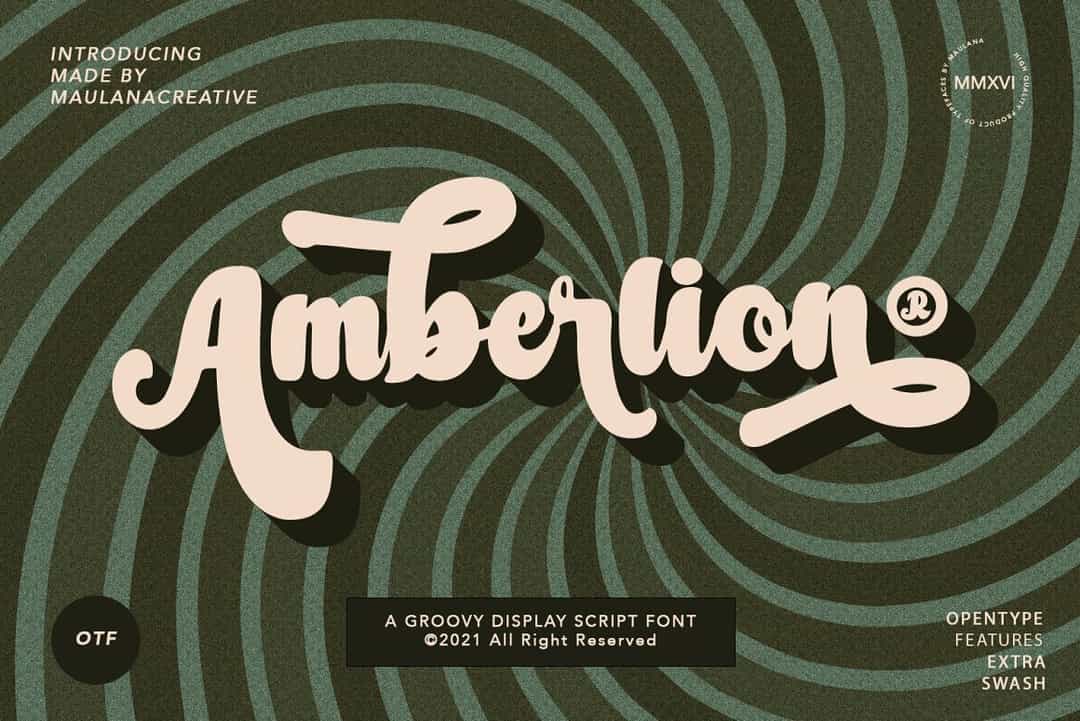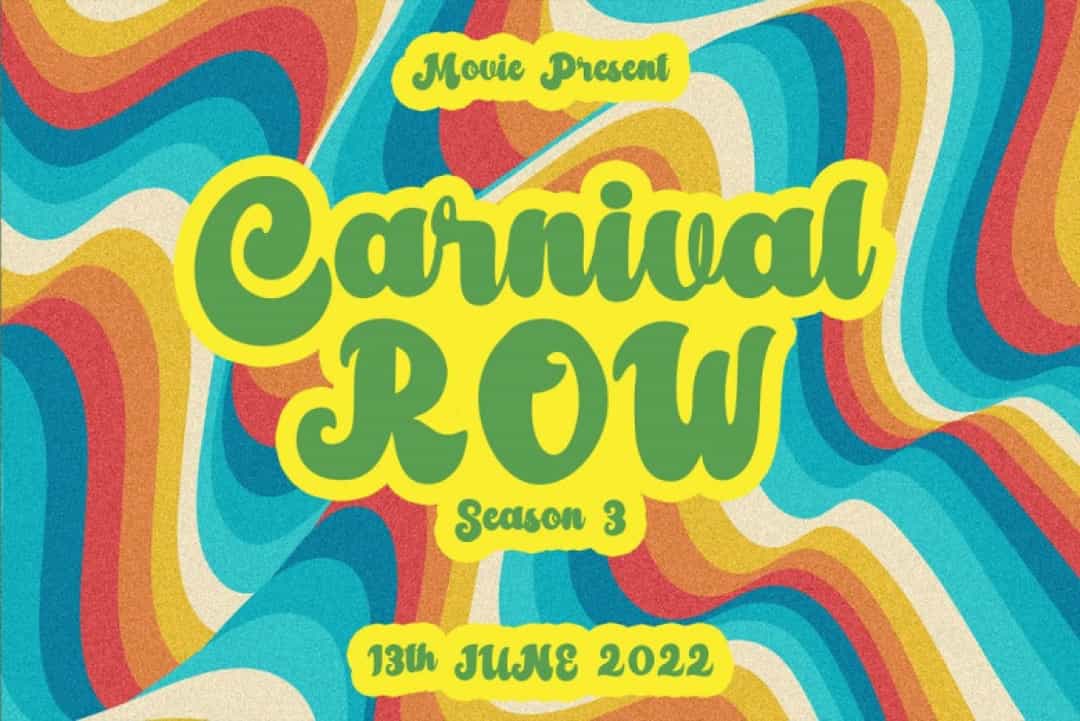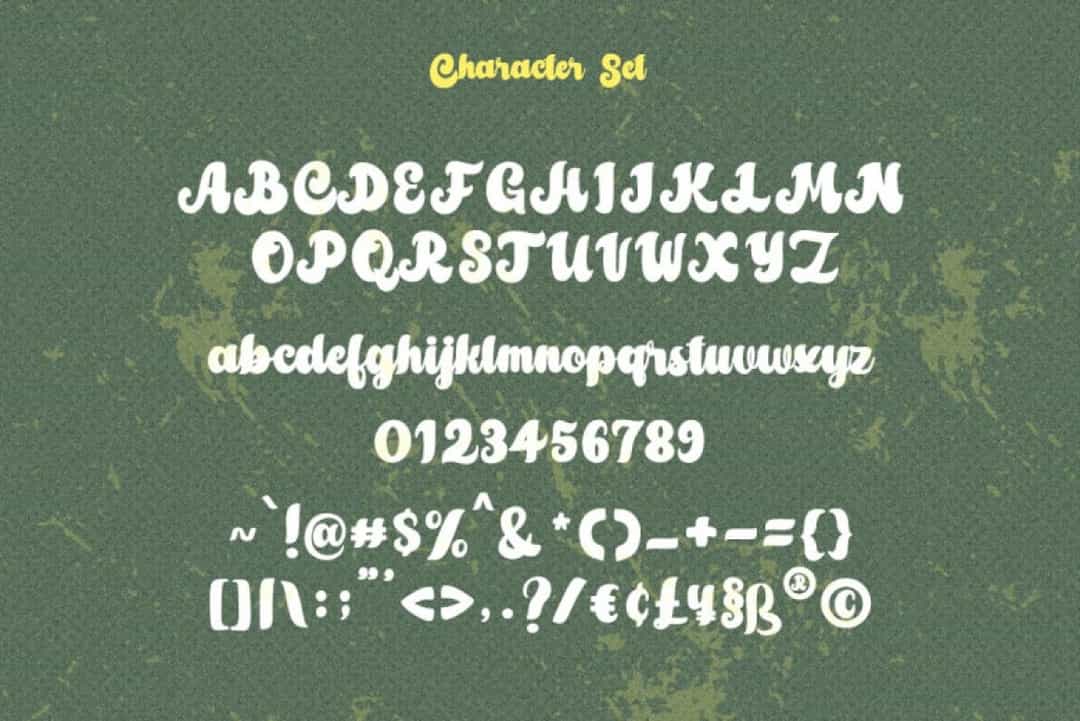
Amberlion, an elegant 70’s script font from the 70s, boasts elegant curvy strokes, uprights and whimsical characters. Opentype features include ligatures of characters as well as alternate lowercase swashes to give more artistic works a more artistic appearance. Amberlion supports over 100 languages!